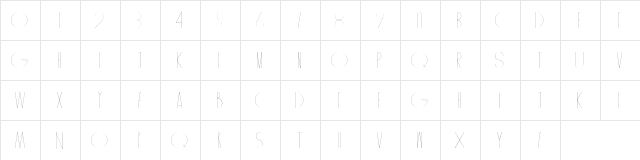
www.happyloverstown.eu_Love_Sick Regular
Design Context for www.happyloverstown.eu_Love_Sick Typeface
www.happyloverstown.eu_Love_Sick is a composed and adaptable typeface that performs quietly and consistently across a wide range of design contexts.